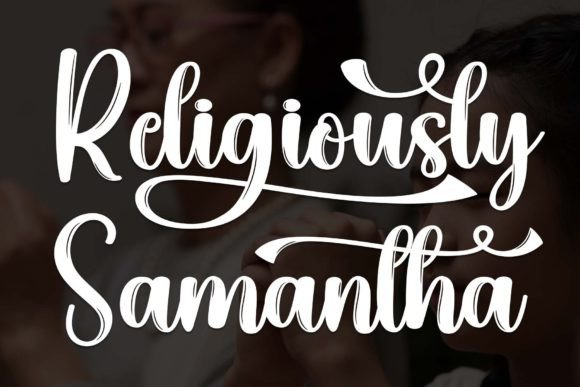
Introducing Religiously Samanta Font, the ultimate choice for those seeking the best font for display. Created by the talented designer, Creativewhitee, this font brings a sweet and friendly handwritten touch to your projects. With its natural and unique style, Religiously Samanta Font is a versatile and captivating addition to any design collection.
Unlock the power of imagination with Religiously Samanta Font! This font exudes creativity and elegance, making it an absolute must-have for designers, creatives, and anyone looking to make a lasting impression. Whether you're designing logos, invitations, posters, or social media graphics, this font will elevate your creations to new heights.
Imagine the impact of using Religiously Samanta Font in your next project. Its graceful curves and authentic hand-drawn feel will instantly grab attention and evoke a sense of warmth and authenticity. The meticulously crafted characters add a touch of sophistication, making your text come alive with every stroke.
Don't settle for ordinary fonts when you can have the extraordinary. Religiously Samanta Font offers a wide range of possibilities to unleash your creativity. Its versatility allows it to seamlessly adapt to various design themes, whether it's a vintage-inspired wedding invitation, a modern and minimalist logo, or a playful social media post.
With Religiously Samanta Font, you can effortlessly convey emotions and tell stories through your designs. Its emotional appeal brings a sense of intimacy and connection, making your audience feel like they're experiencing something truly special. From romantic messages to heartfelt quotes, this font adds a touch of sentimentality to every word.
In conclusion, Religiously Samanta Font is not just a font; it's a creative companion that unleashes your design potential. Its natural and friendly style, combined with its versatility and emotional appeal, make it the ultimate choice for designers and creatives alike. Upgrade your collection today and let Religiously Samanta Font elevate your designs to new heights!